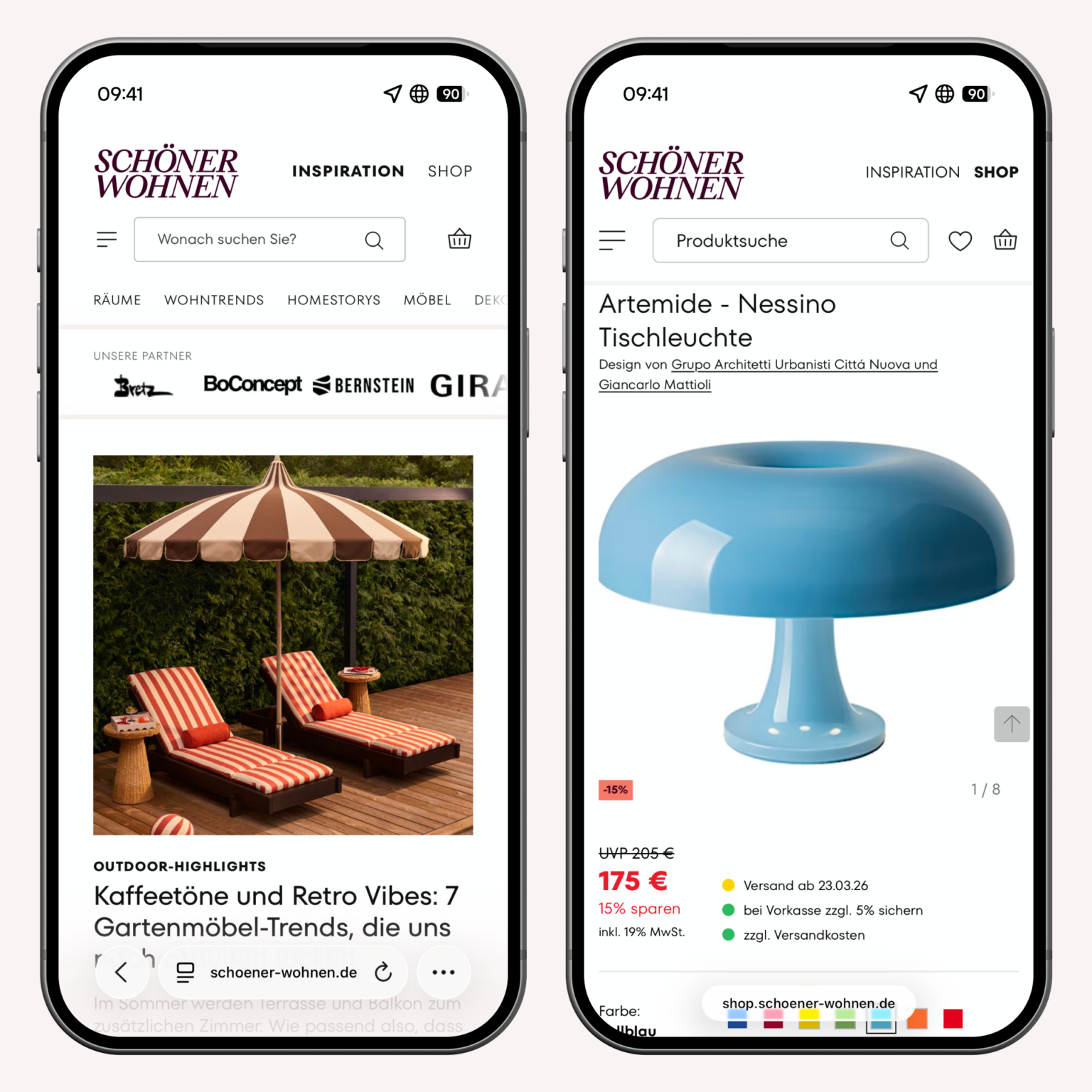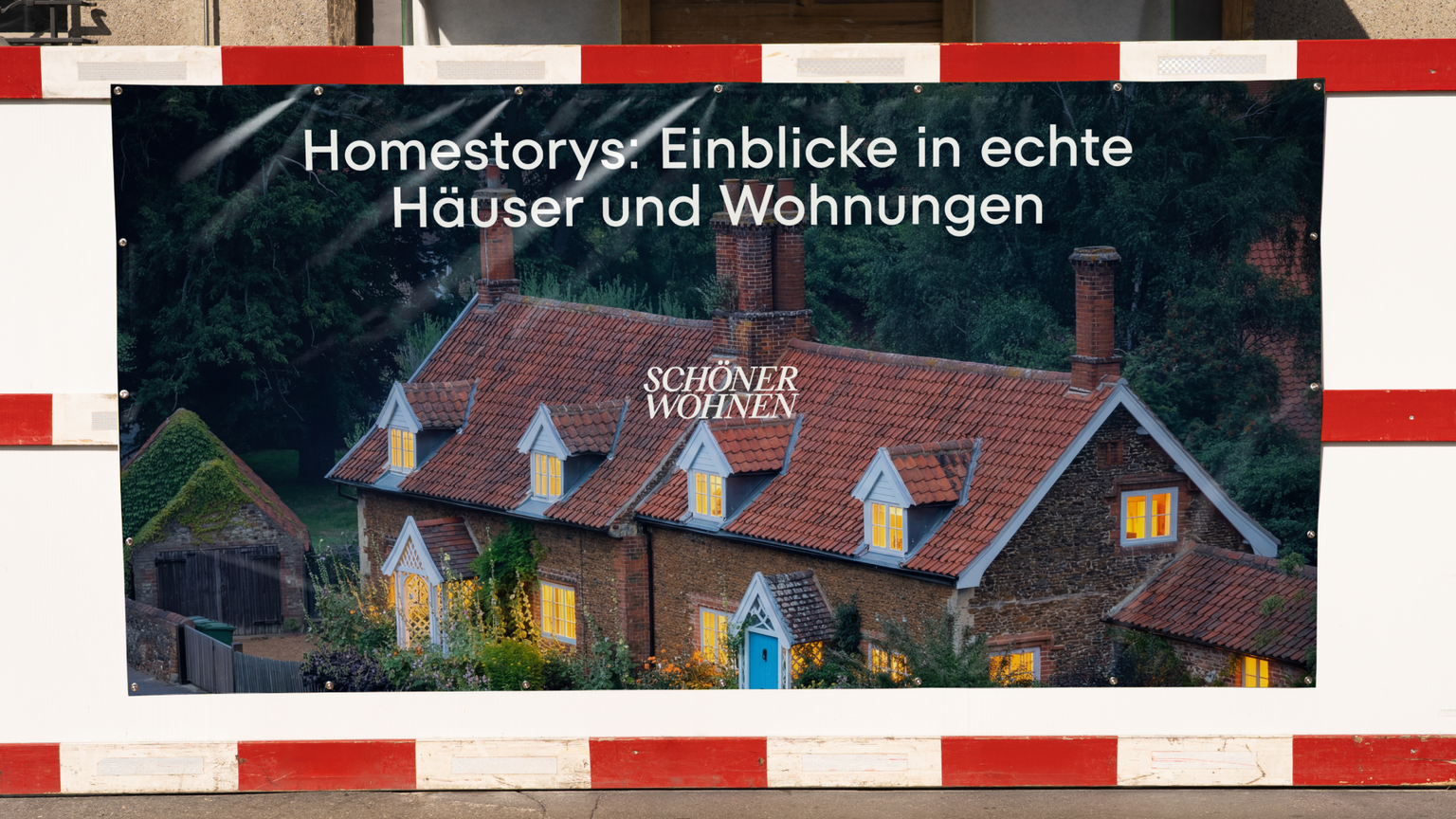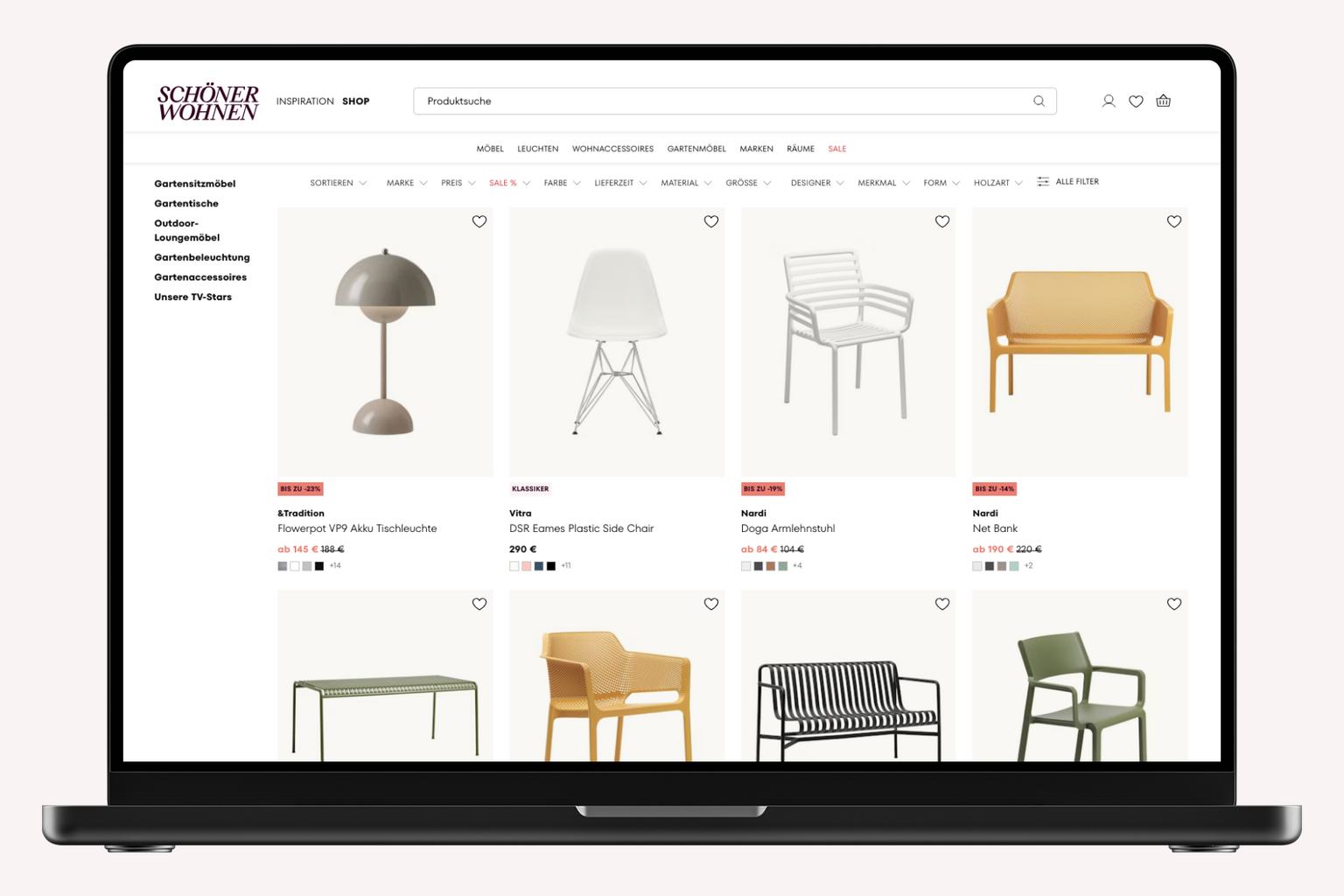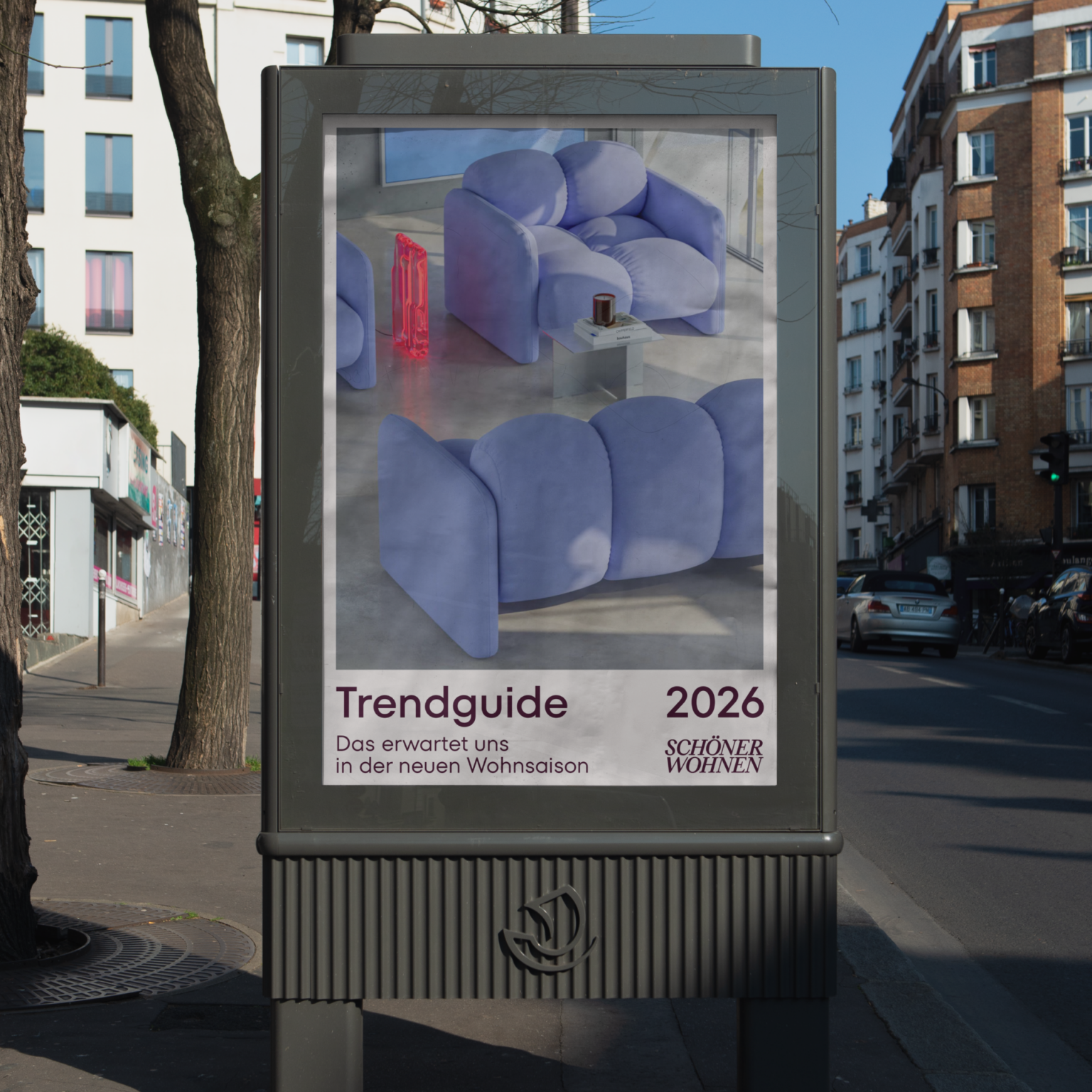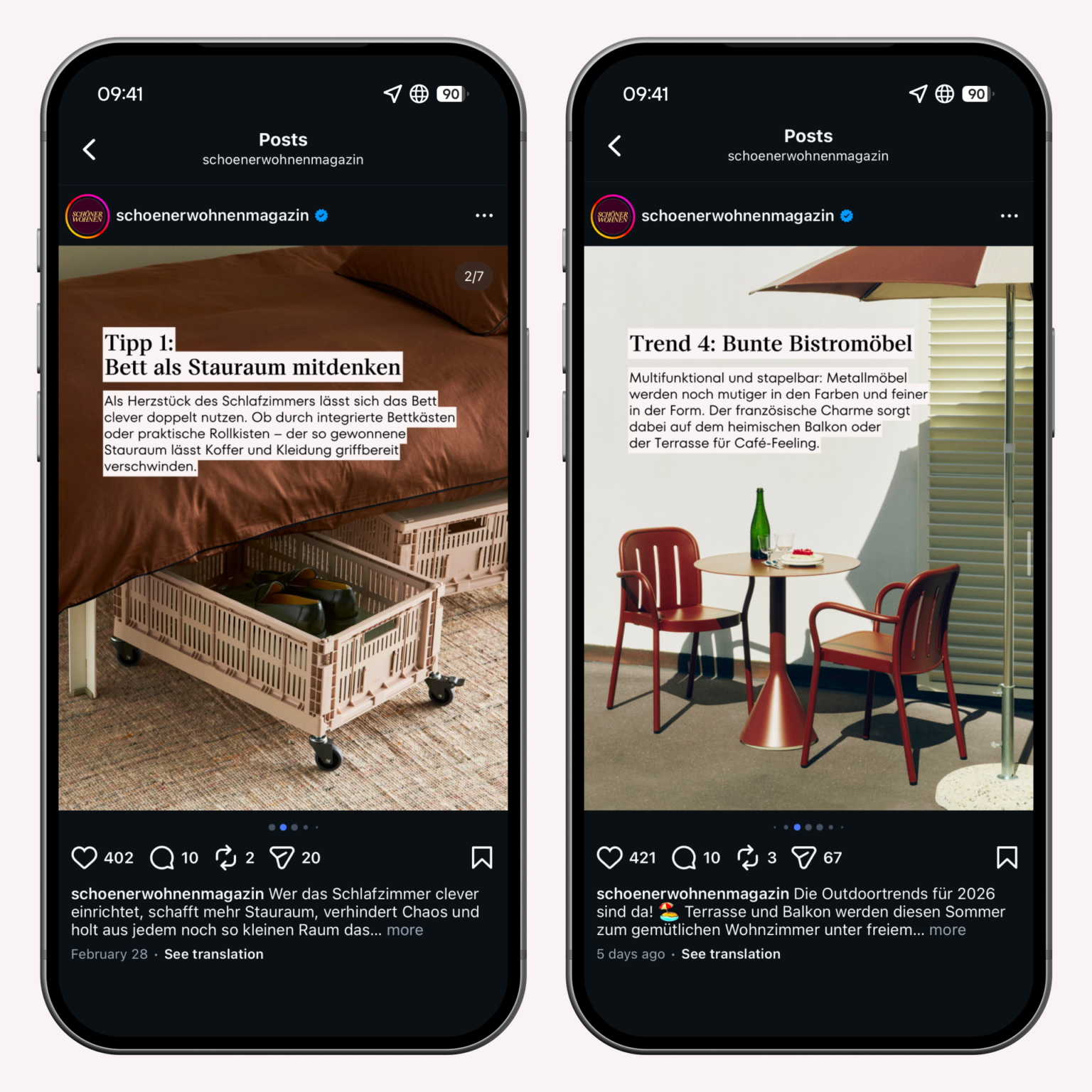
TT Fors has become part of the brand identity for the German brand Schöner Wohnen.
Schöner Wohnen is a brand and magazine dedicated to interior design, architecture, and lifestyle. The company also produces its own collection of home goods. Our functional TT Fors highlighted the clean and modern brand identity.